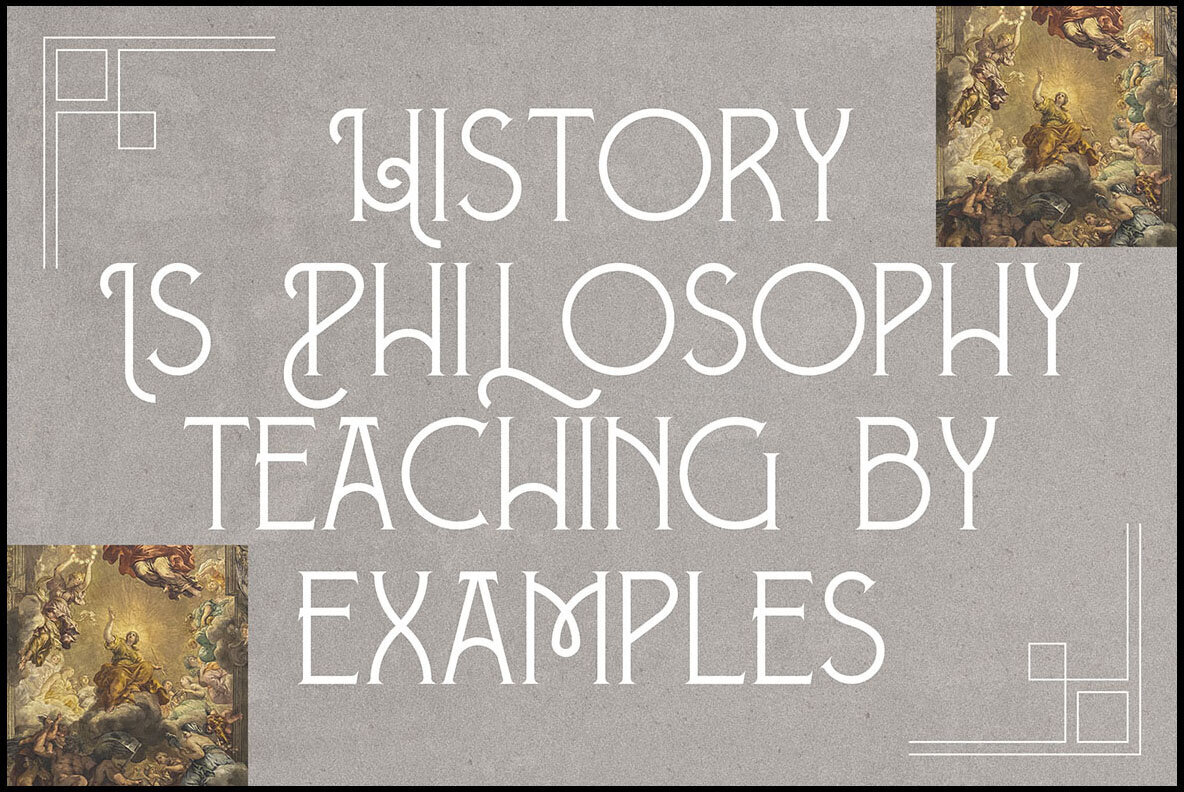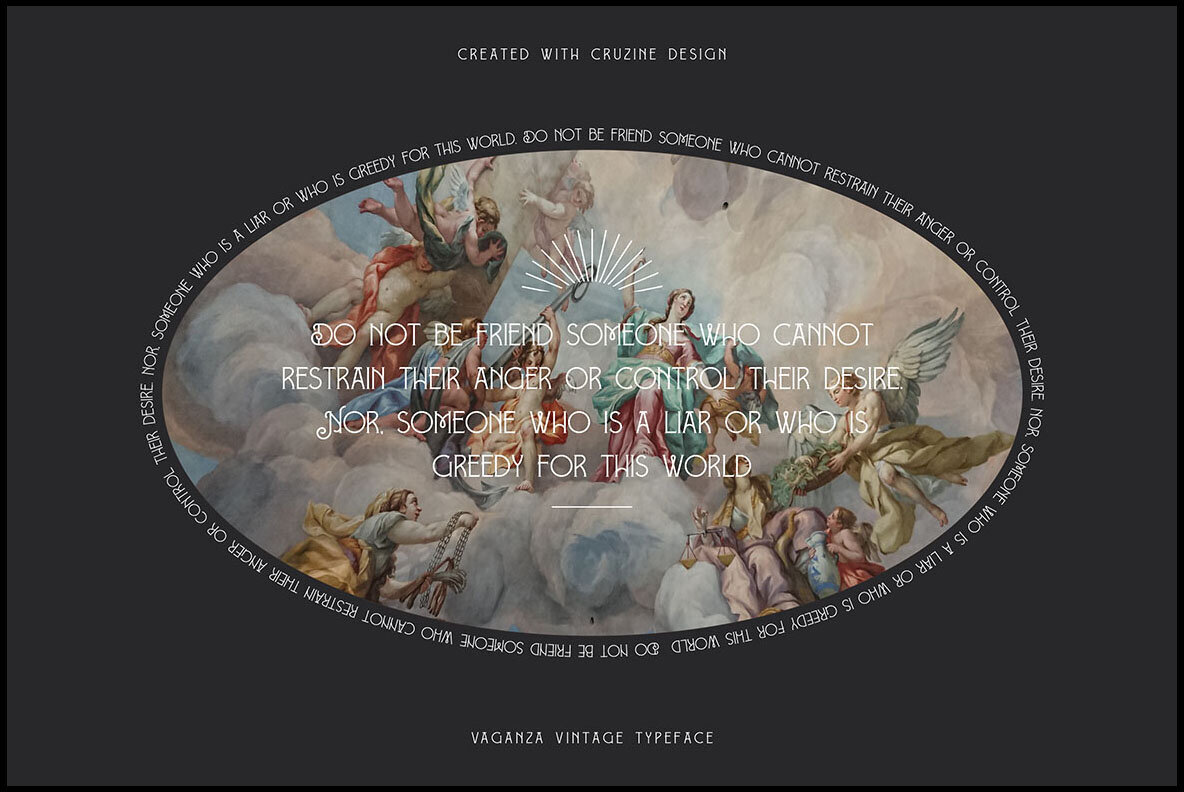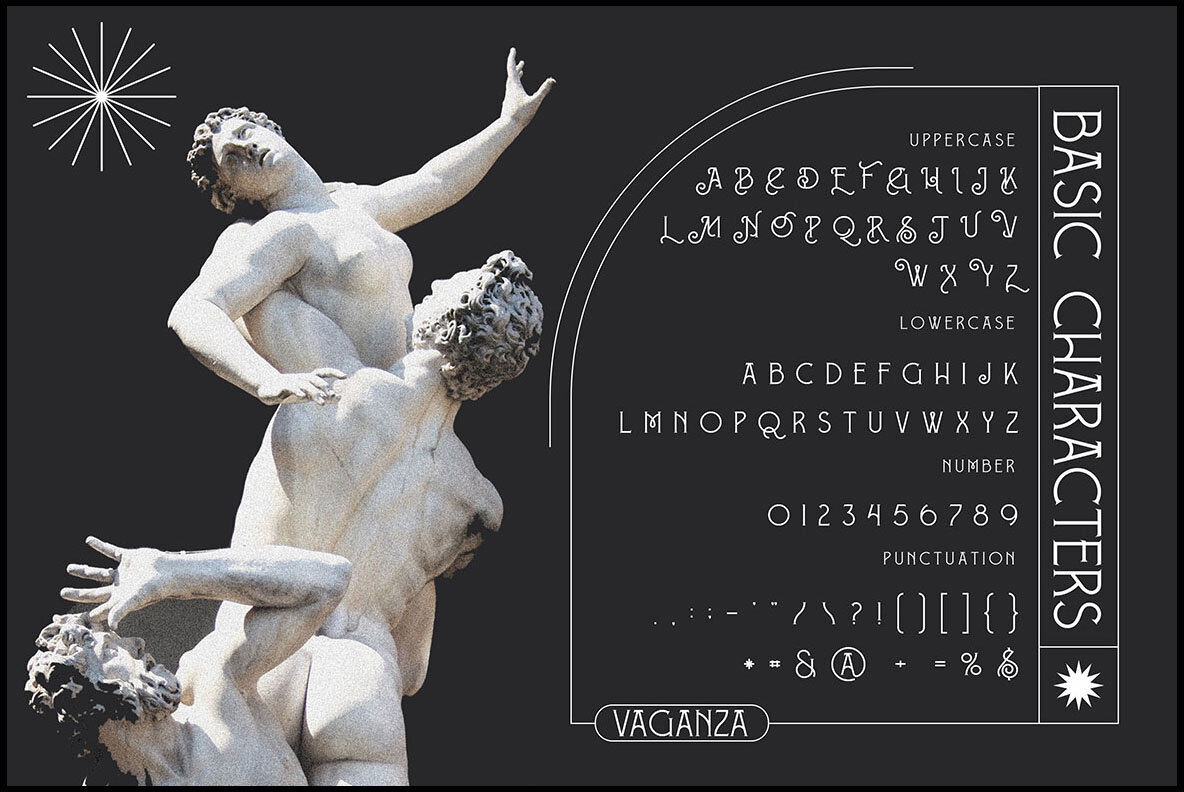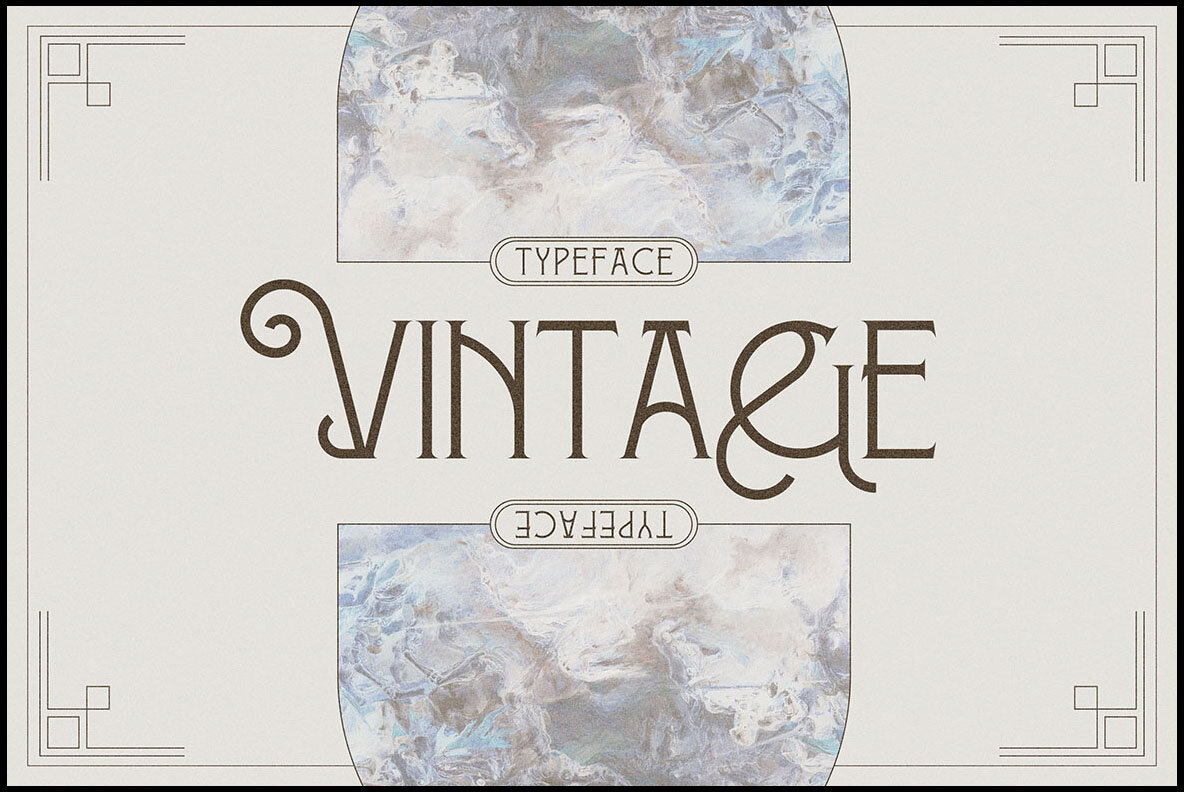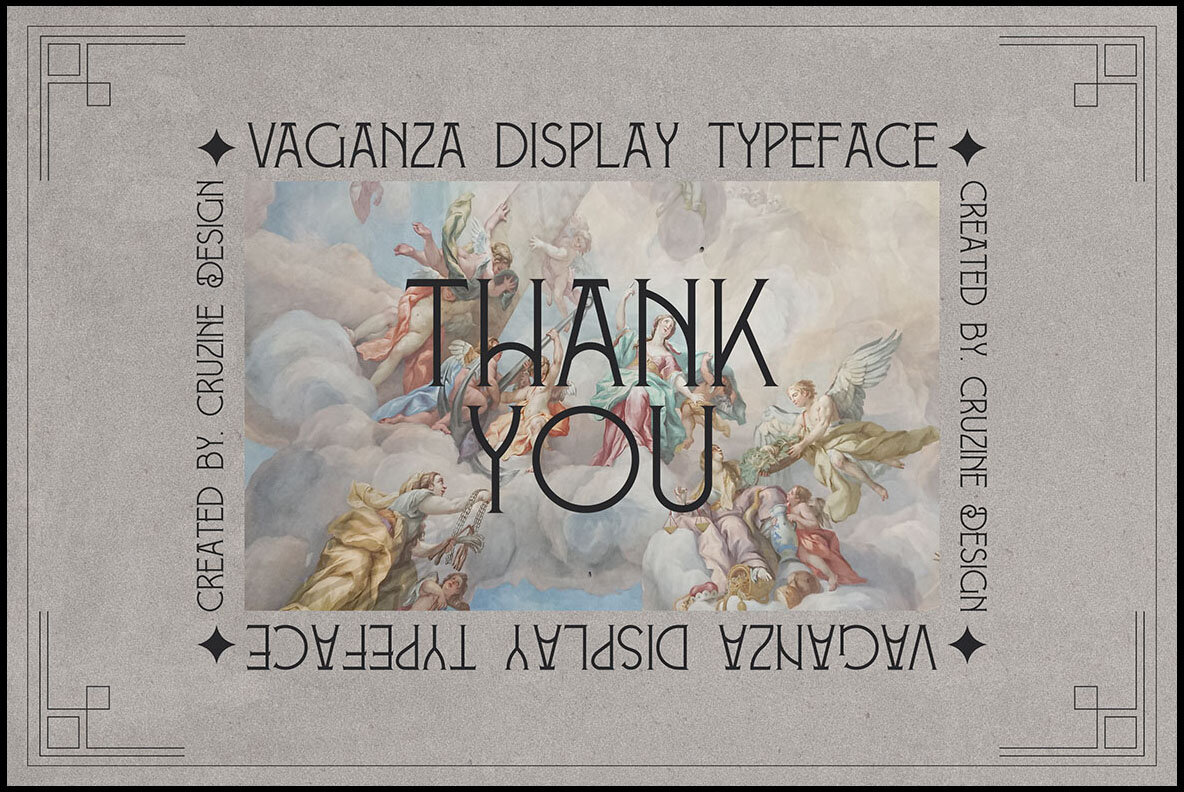
Vaganza Font
Vaganza
Vaganza by Peter Olexa is a distinctive serif font with a vintage ornamental style, perfect for creating standout logos and branding projects that capture an old-world charm.Vaganza: Unique Vintage and Ornamental Serif Font